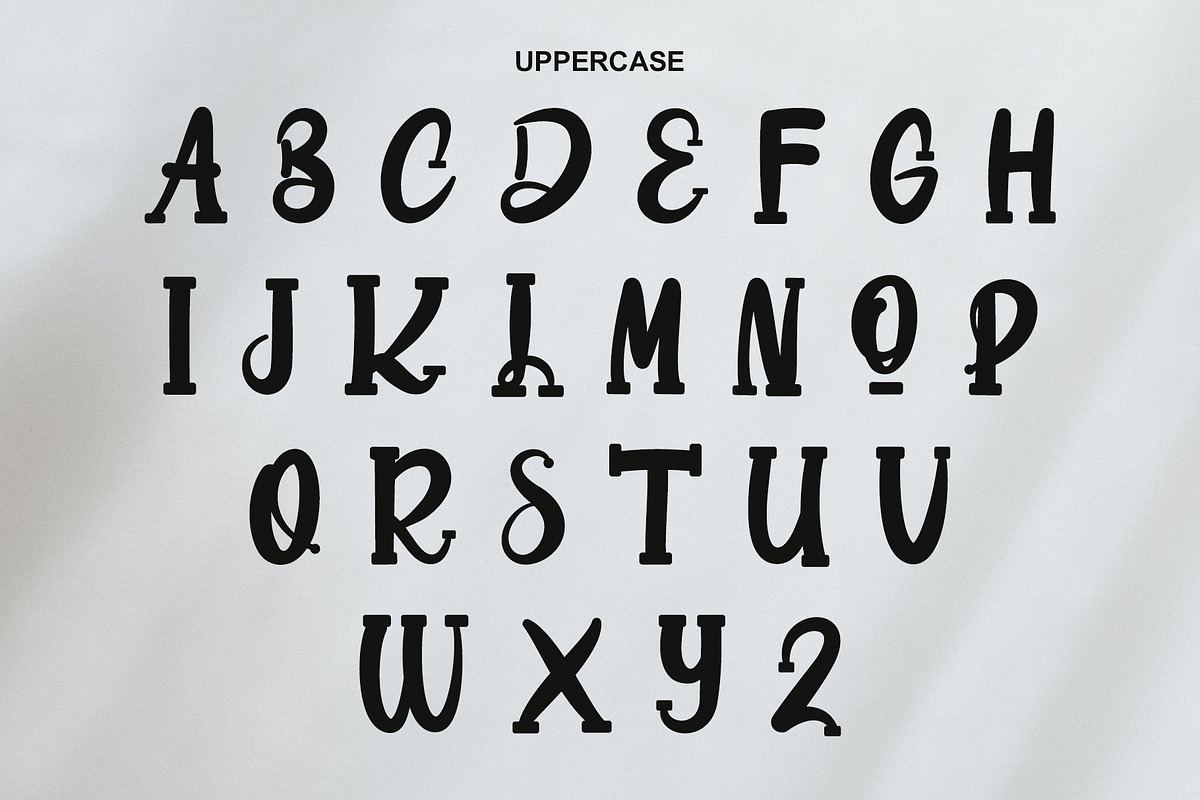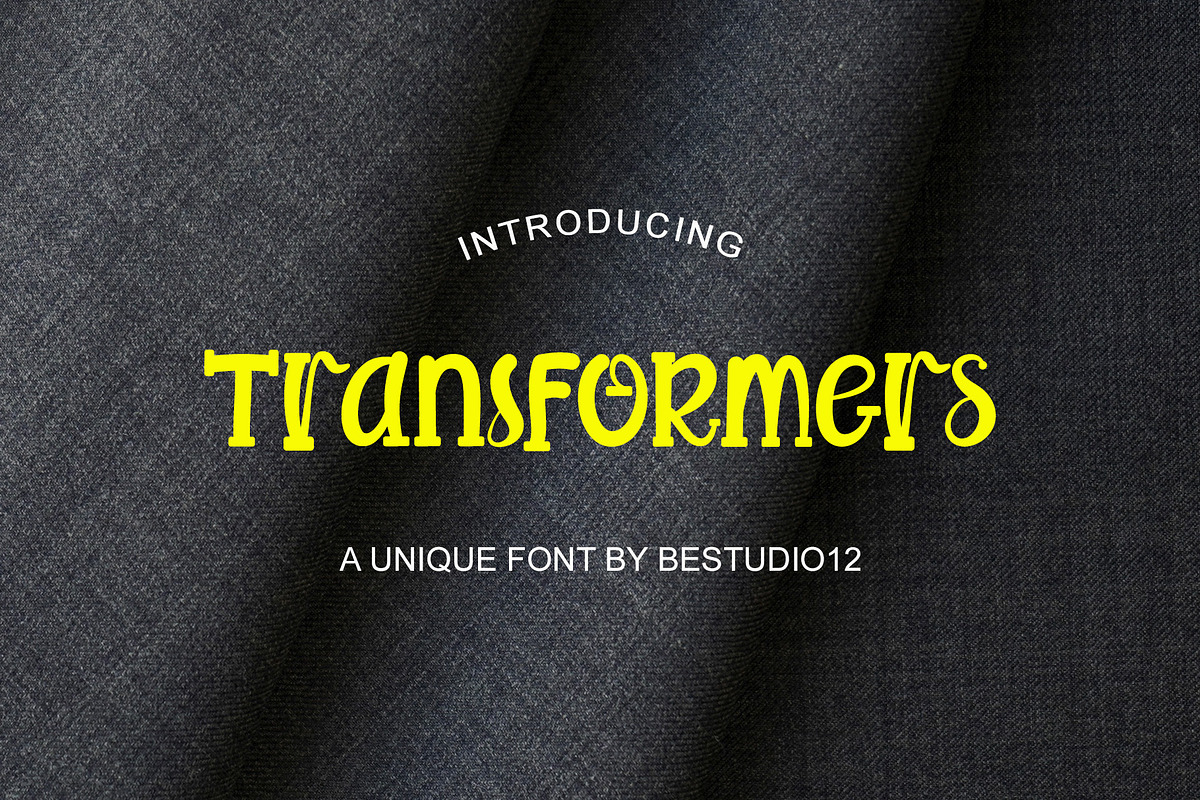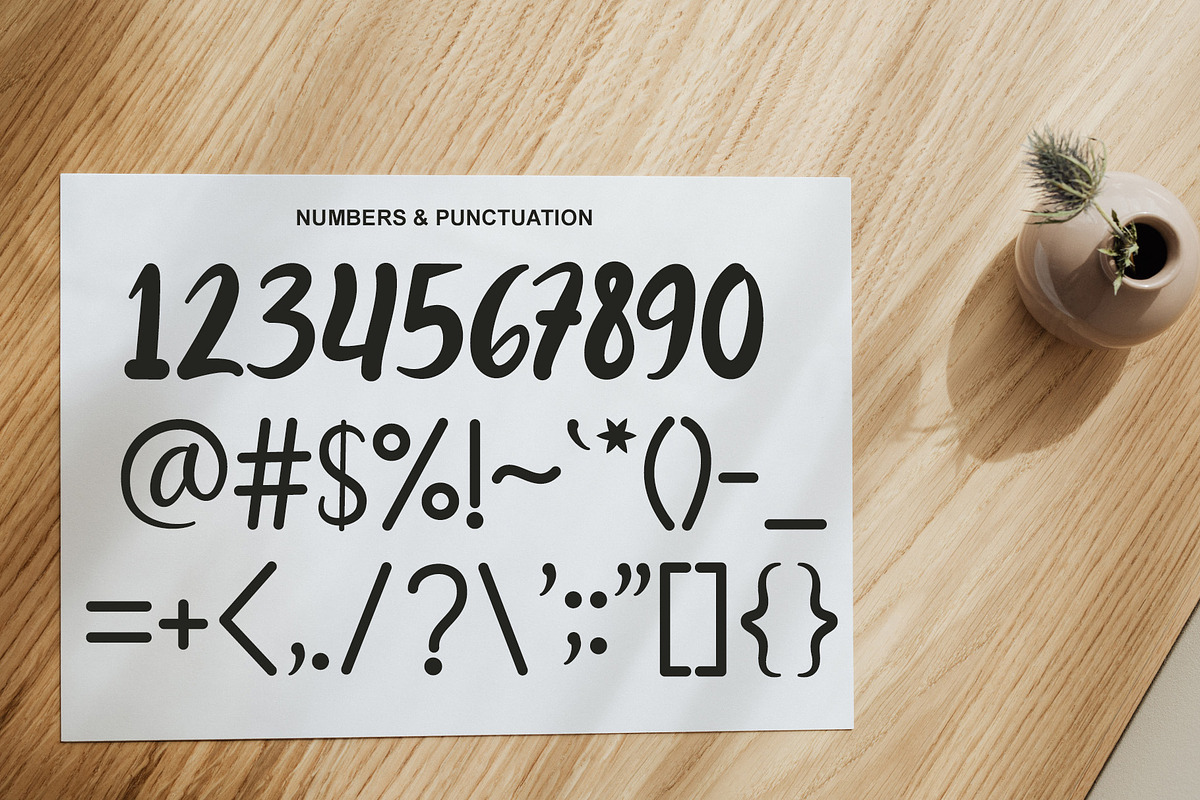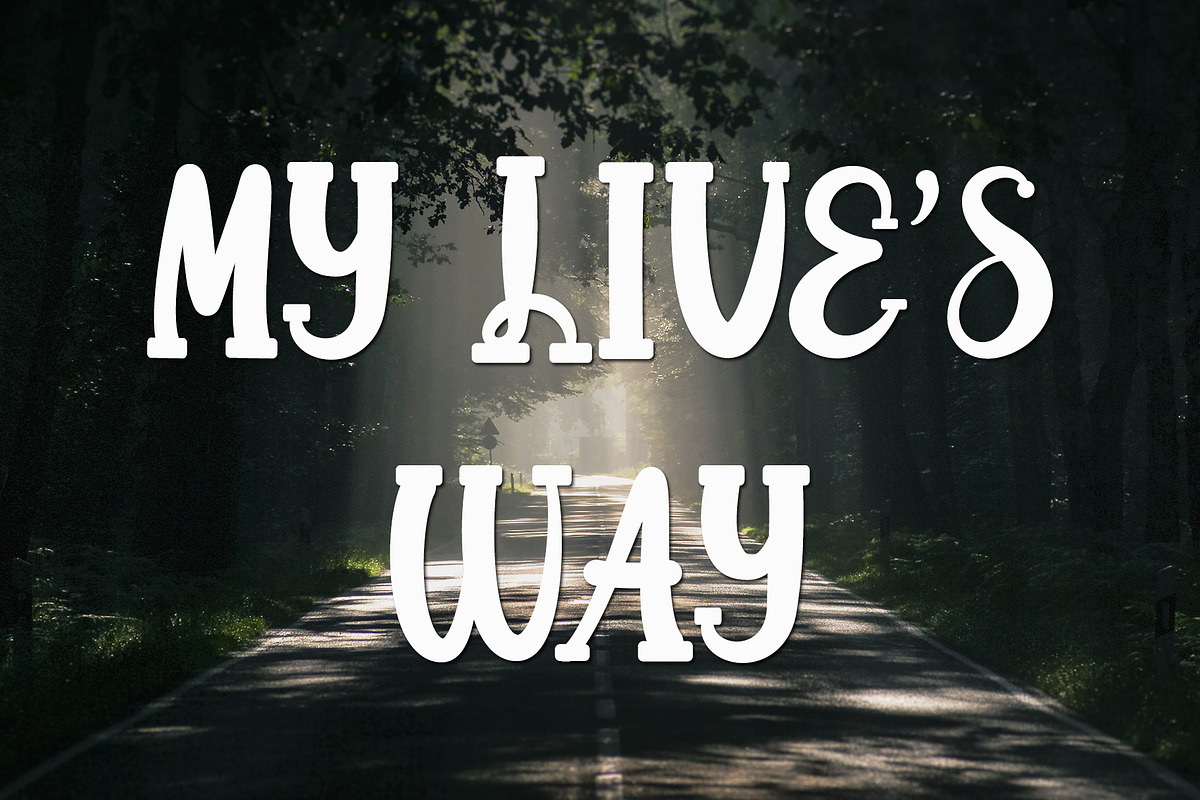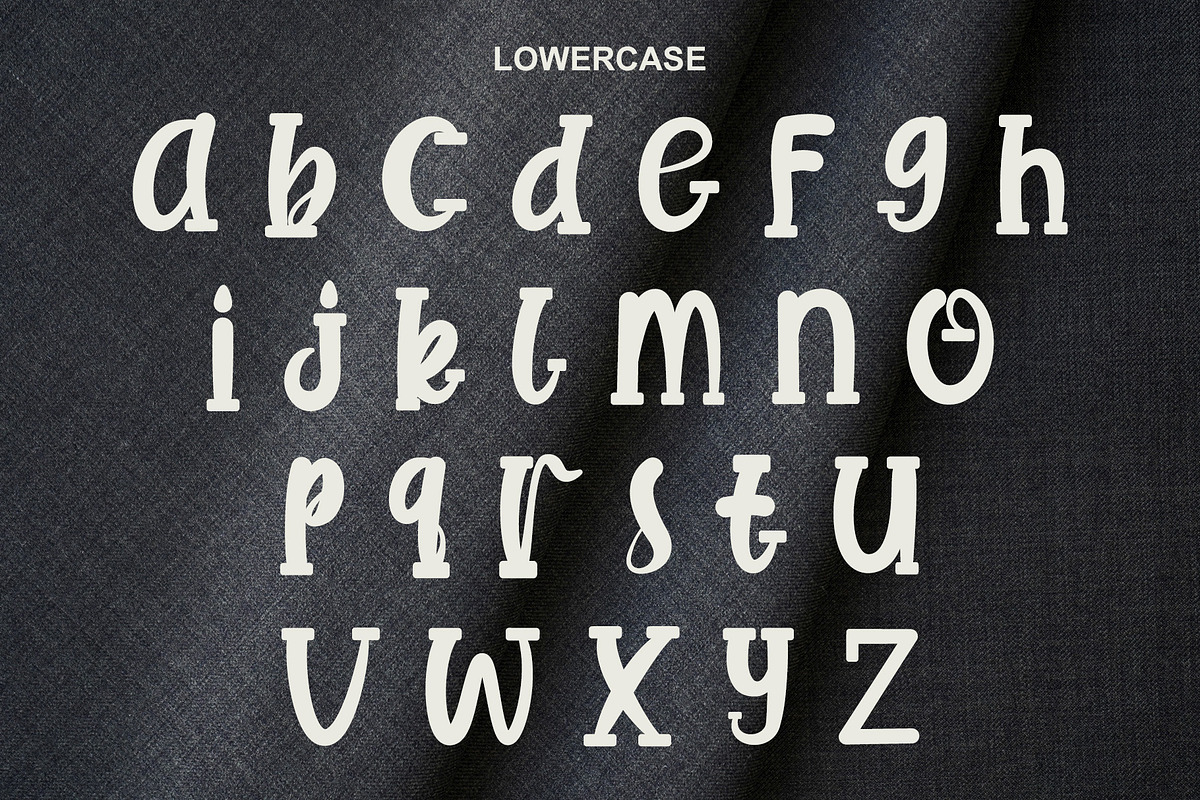
Transformers - Cartoon Font
Transformers – Unique Display Font for Creative Projects
Unleash bold energy into your designs with Transformers , a uniquely styleddisplay font inspired by the world of cartoons, comics, and high- impact mediaWith its dynamic shapes and strong character presence, this font is crafted to command attention — perfect fortitles, logos, and any visual that needs a punchof personality.
Whether you're a content creator, designer,or brand developer, Transformers will elevate your work on:
Cartoons & Comics
YouTube ThumbnailsChannel Titles
Instagram, Facebook, and Twitter Graphics
Posters, Flyers & Social Media Ads
TV Shows, Movie Titles, & Entertainment Branding
Product Names, Packaging, & Merch
Corporate Startup Logo
Its bold and animated appearance makesit is especially suitable for fun, modern, and futuristic concepts —a true standout font for creatives who want to make a visual impact.
Uppercase & lowercase letters
Transform your creative vision into something unforgettablewith Transformers Font , the energy is unstoppable!-